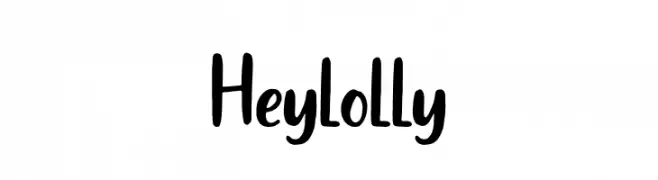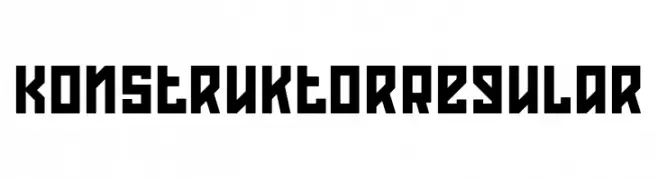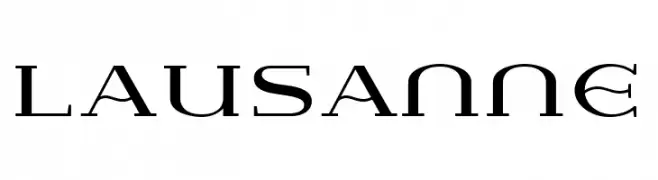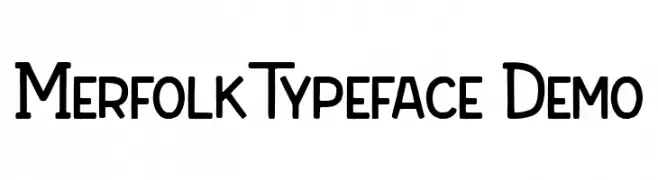
A bold, modern sans-serif typeface with uniform strokes and strong visual impact.
A modern, geometric stencil font with a futuristic and industrial design.
A bold, geometric font with strong, angular lines and a modern aesthetic.
A bold, geometric font with strong, angular lines and a modern industrial look.
A playful, bold typeface with rounded letterforms and a friendly style.
A playful, handwritten font with a smooth, flowing style.
A modern, elegant font with geometric and humanist influences.
A bold, geometric font with a modern, industrial aesthetic.
A bold, geometric font with sharp angles and a modern, industrial style.
A bold, geometric font with a modern, industrial style.